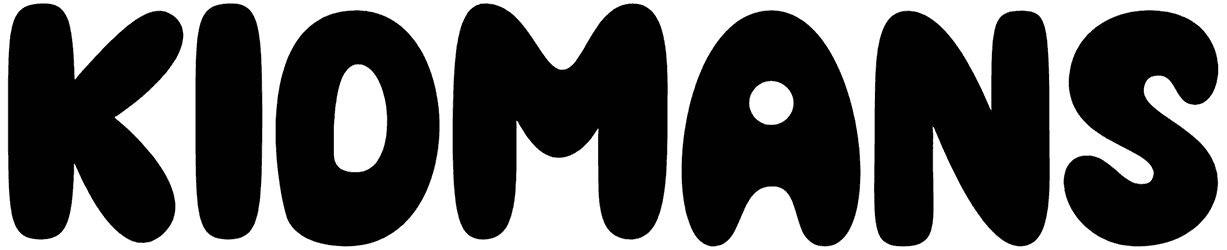
Kidmans Font
If only you knew what awaits you in the innovative character map of Kidmans, you wouldn’t wait another second before downloading this fun font. All its cute, fat letters are made of short, rounded caps. And the lowercase? Sadly, they’re not available.
However, instead of that, you get a set of natural icons that allows you to use Kidmans as a dingbat font too. Looks like you have everything you need to create lovely spring posters, garden websites, and so forth.